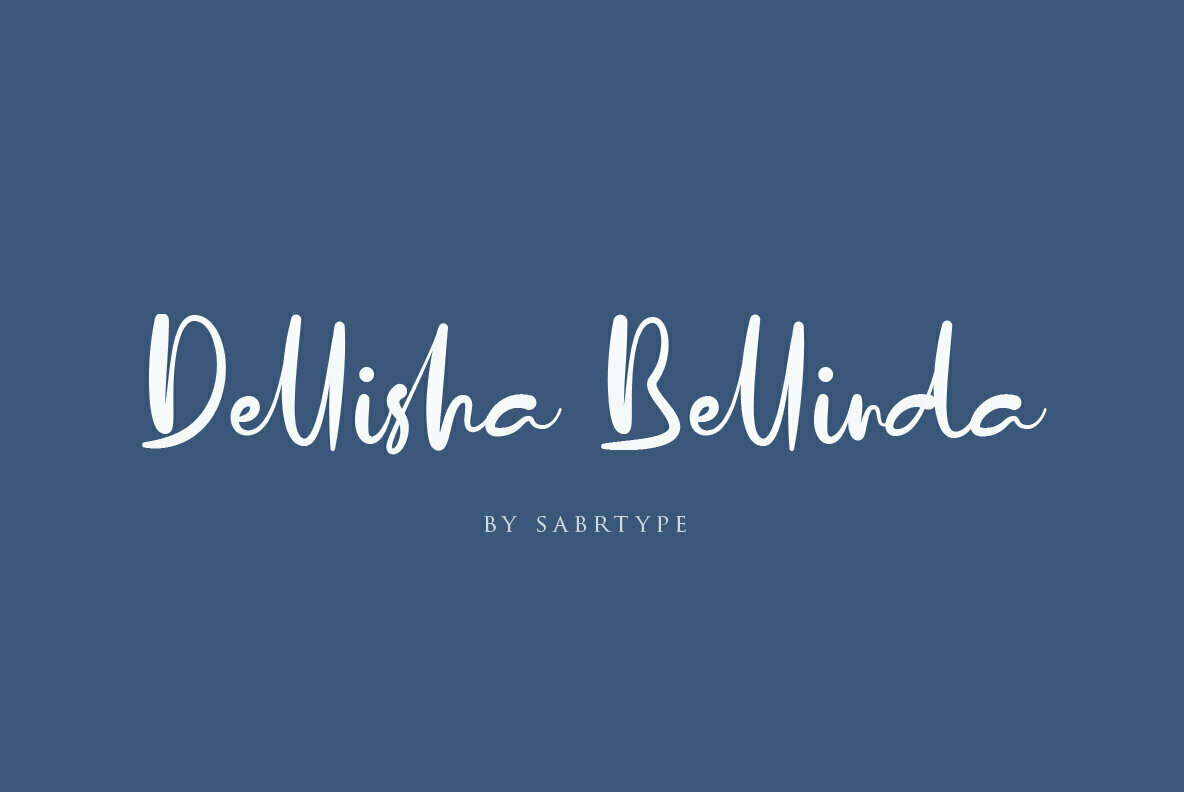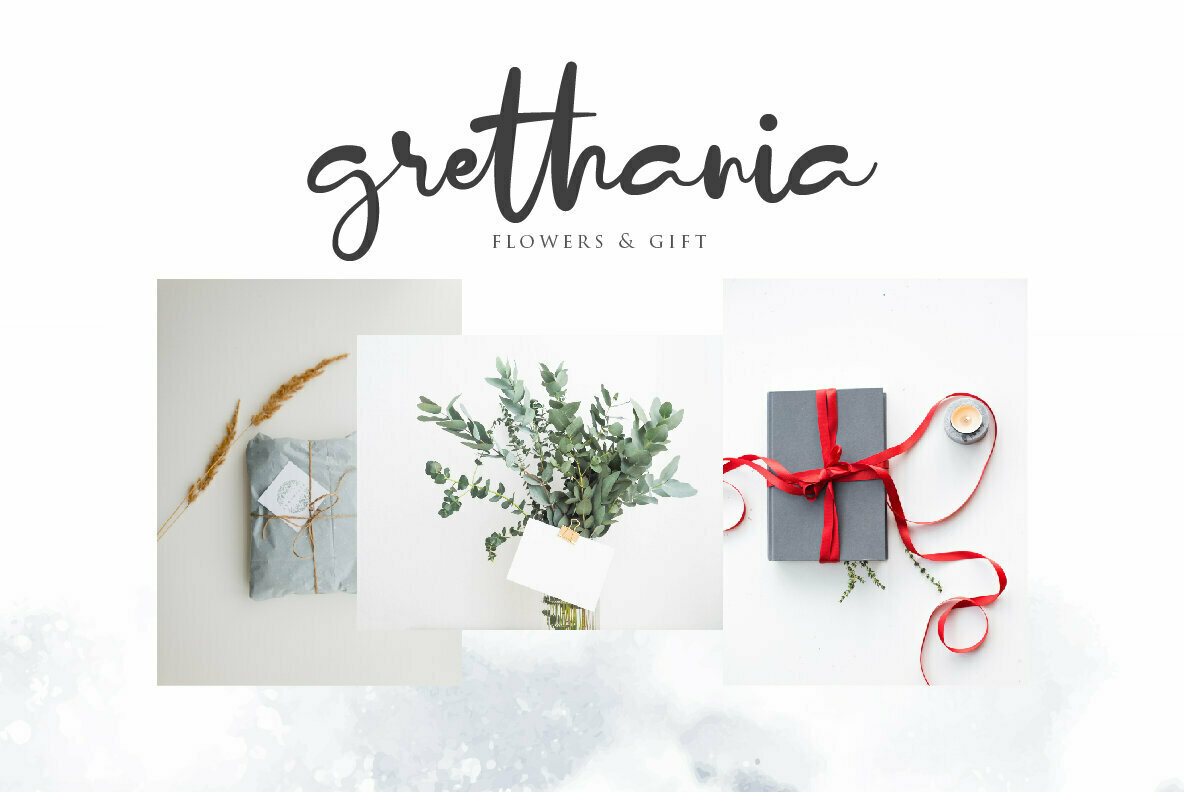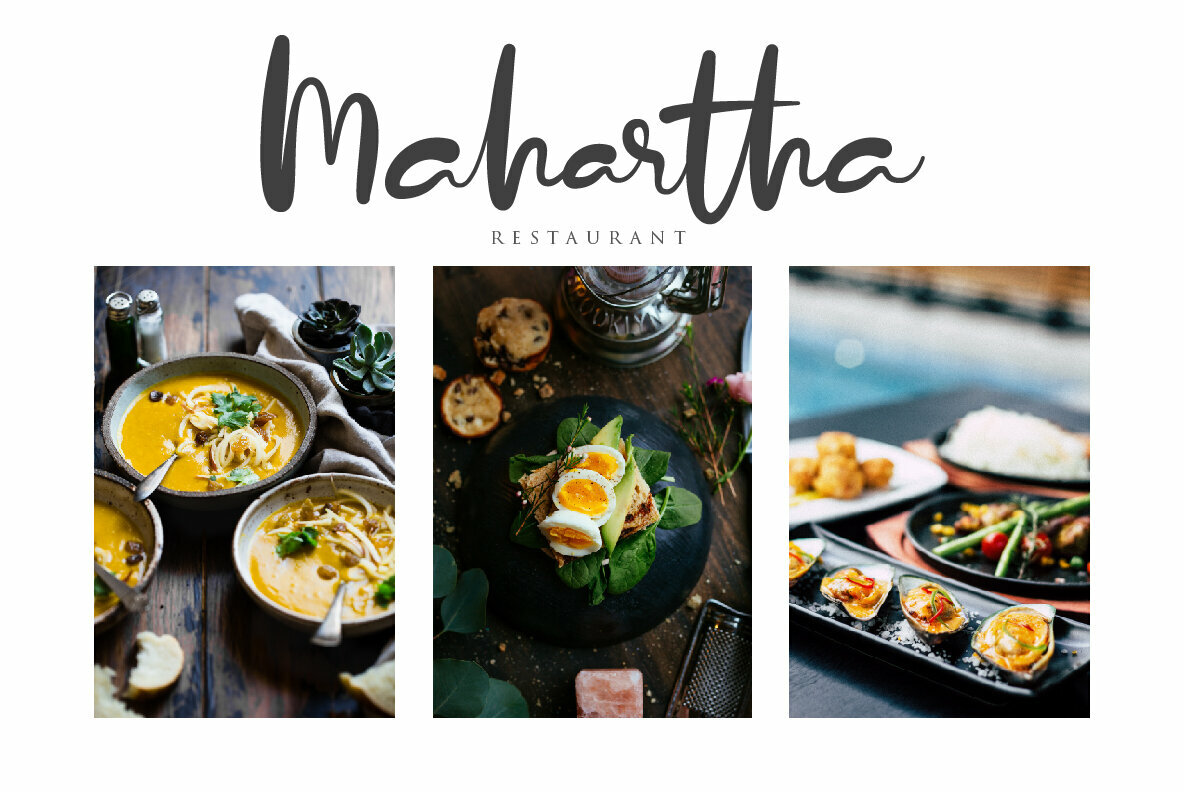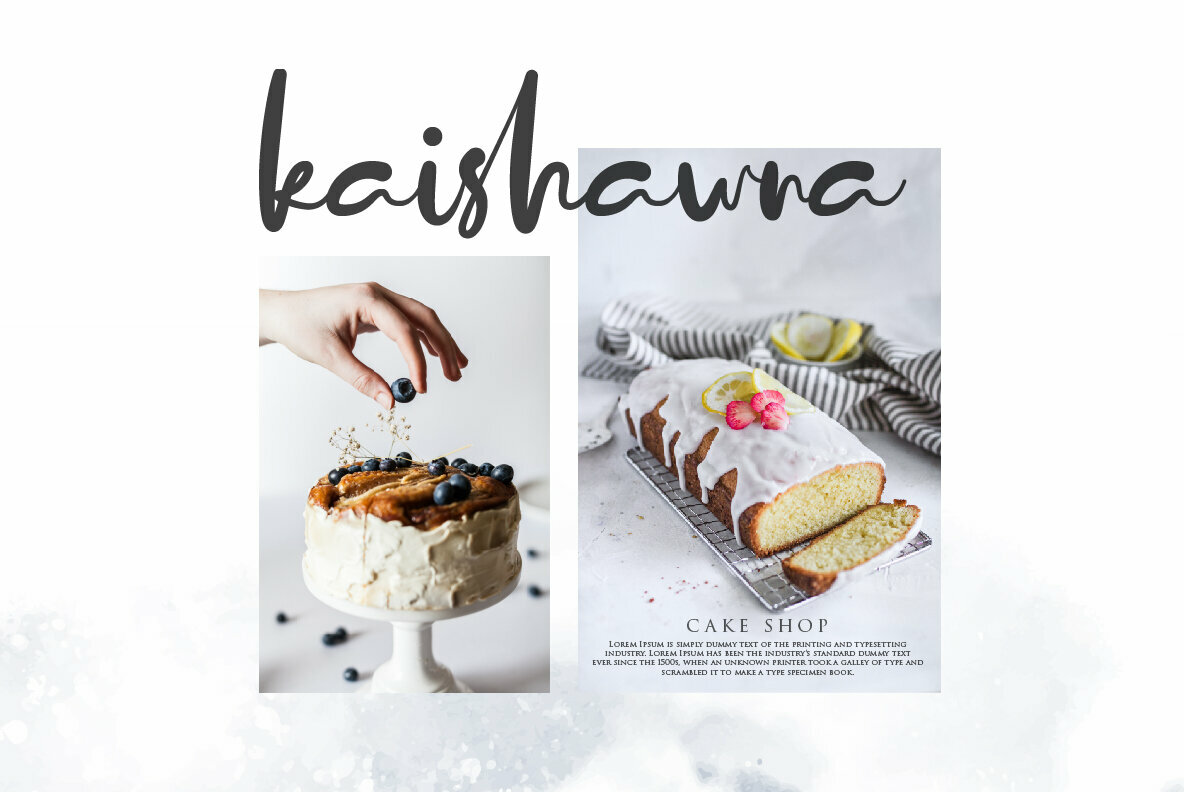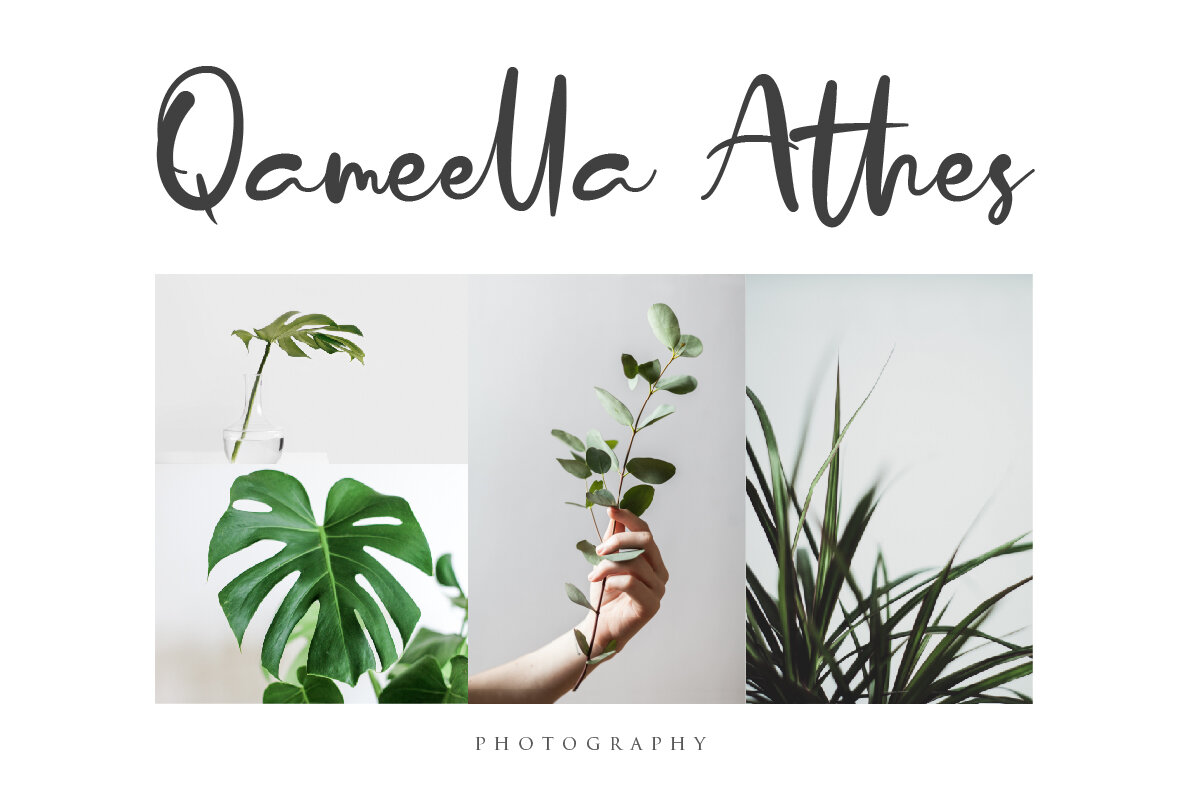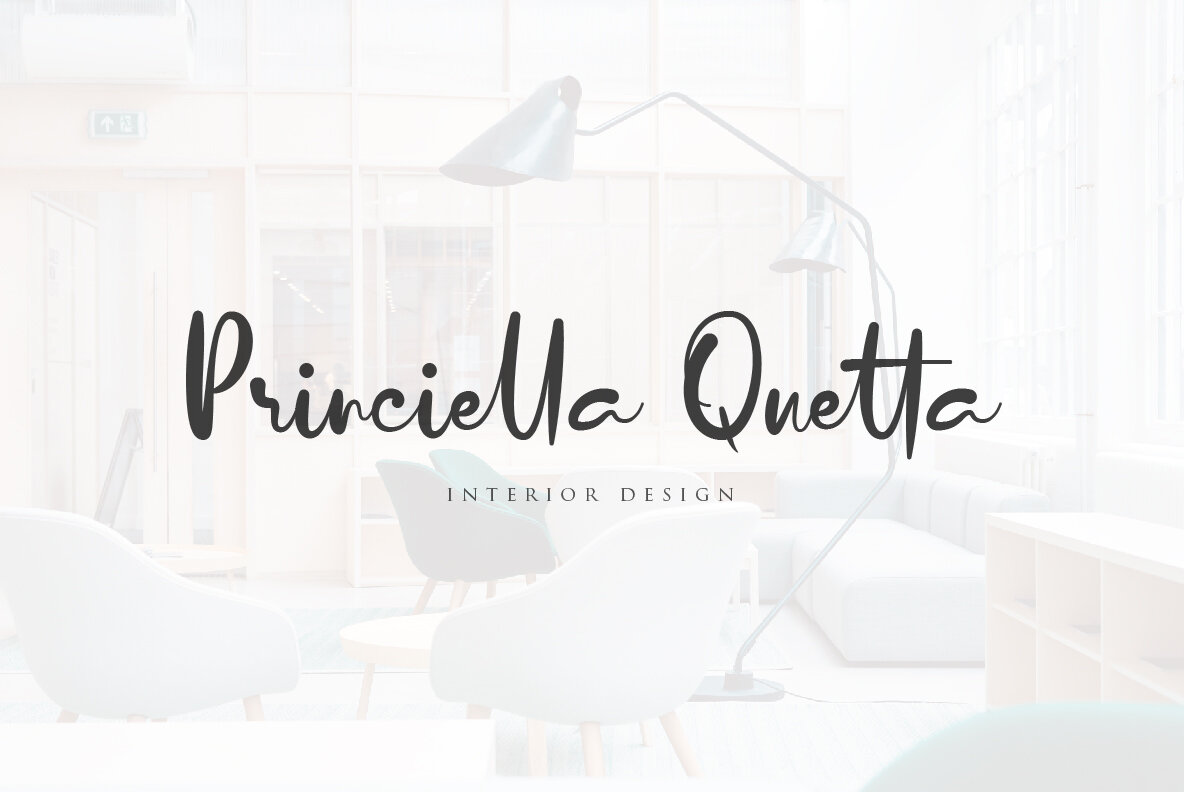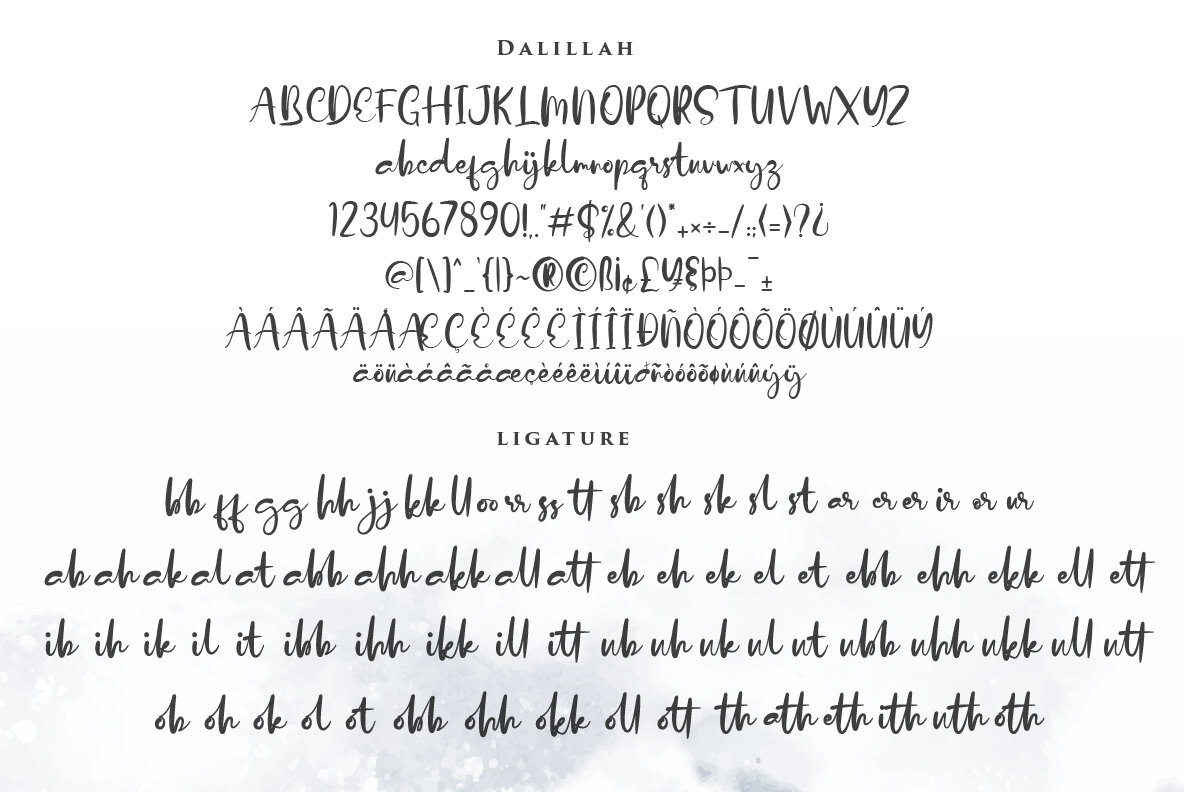
Dalillah Font
Dalillah
Dalillah is a font that captures the elegance of natural handwriting. Its delicate script design is versatile, making it an ideal choice for a wide range of projects. Whether you're crafting a logo, branding a product, or designing wedding invitations, Dalillah offers a refined touch to elevate your creative work. Features: Dalillah also supports multiple foreign languages, ensuring your design communicates effectively across diverse audiences. With its natural beauty, Dalillah adds a sophisticated charm to any project.Dalillah: The Graceful Handwriting Font